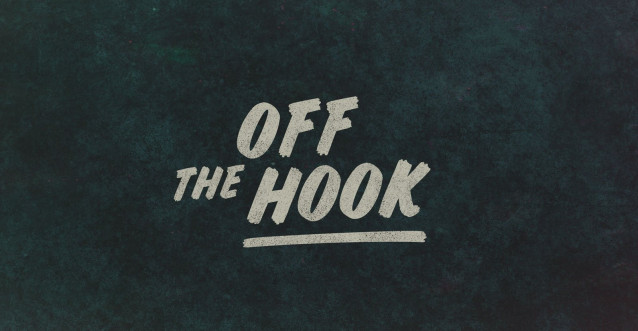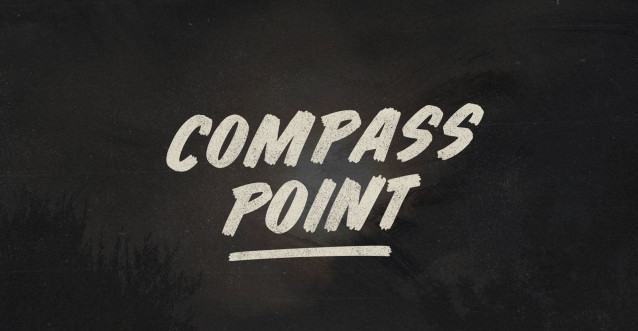
Compass Point Font
Compass Point Font is a bold and authentic display font. The font is suitable for any branding project like logo, kids, summer, food, posters, kids, and many more.